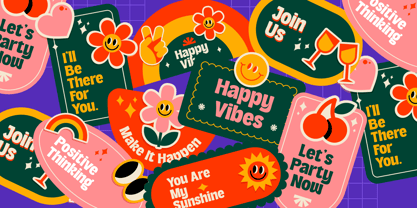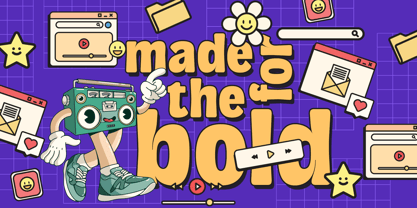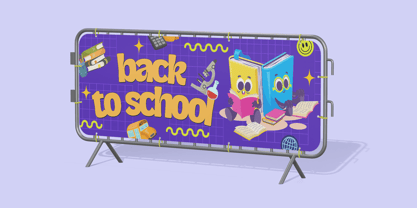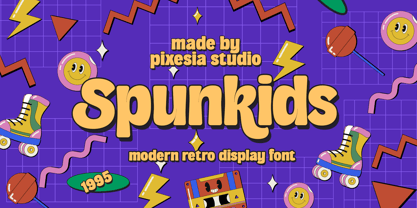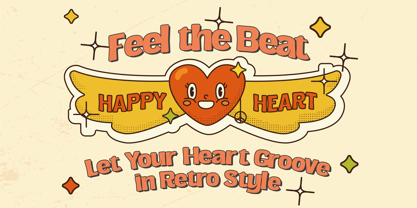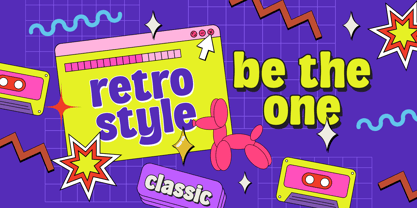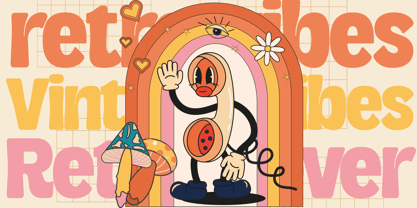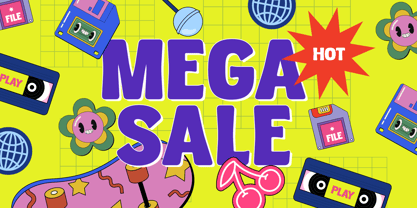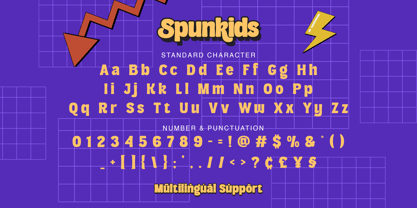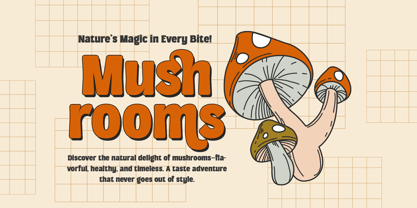
Spunkids
by Pixesia Studio
The Spunkids Font Family was designed by Abul Almaududi and published by Pixesia Studio. Spunkids contains 1 styles. More about this family
Introducing Spunkids - Retro Sans Serif Font Spunkids is a retro sans serif display font with bold, playful letterforms. This font features smooth curves and a retro style, reminiscent of the 1960s and 70s, evoking a playful, relaxed, and informal feel with its bold, clean lines. Spunkids is perfectly suited for branding, logotype, social media posts, headlines, logo, greating card, advertising, product packaging, label, photography, watermark, poster, t-shirt, website design, invitation, stationery and any project seeking a fun, retro feel with bold, playful letterforms. FEATURES - Stylistic Alternates - Ligatures - Uppercase and Lowercase letters - Numbering and Punctuations - Works on PC or Mac - Simple Installation - PUA Encoded Characters - Easily accessible without additional design software. - Support Adobe Illustrator, Adobe Photoshop, Adobe InDesign, also works on Microsoft Word - Multilingual Support including Afrikaans, Albanian, Basque, Catalan, Danish, Dutch, English, Estonian, Faroese, Filipino, Finnish, French, Galician, German, Icelandic, Indonesian, Irish, Italian, Malay, Norwegian Bokmål, Portuguese, Spanish, Swahili, Swedish, Zulu Hope you Like it. Thanks.
Designers: Abul Almaududi
Foundry: Pixesia Studio
Spunkids